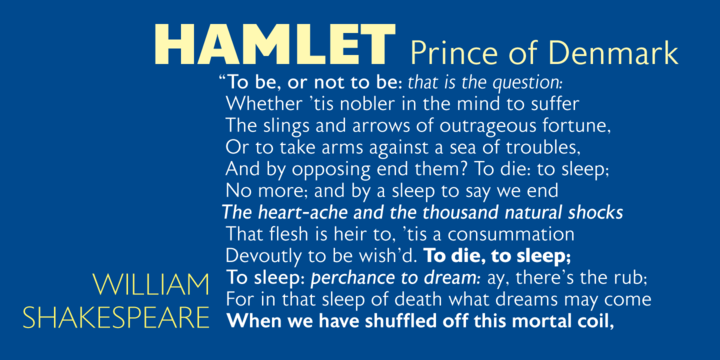
The Astoria Sans Family Font: A Comprehensive Review
- ✨ The Astoria Sans Family Font is an incredibly versatile font, with 6 weights and accompanying italics, making it perfect for a wide range of design projects.
- ✅ The font is based heavily on Gill, especially in the mid-weights, giving it a classic and timeless feel.
- ✅ The consistent series of condensed weights makes it easy to create a cohesive look across different design elements.
- ✅ The font is designed specifically as a text face, but it still works beautifully as a headline font.
While I love the Astoria Sans Family Font, there are a few quirks to be aware of:
- ⚠️ Some users have reported issues with kerning, particularly in larger text sizes.
- 🤔 The font doesn’t have a huge range of OpenType features, which may limit its use in certain design projects.
One of the standout features of the Astoria Sans Family Font is its OpenType features. While it may not have a huge range of features, it does include some useful glyphs and stylistic alternates. For example, you can access the font’s stylistic alternates by using the “Stylistic Set” feature in Adobe Creative Cloud. This allows you to create a more customized look for your design project.
The Astoria Sans Family Font was designed with inspiration from classic sans serif fonts like Gill. The designer aimed to create a font that was both modern and timeless, with a focus on versatility and legibility. The result is a font that’s perfect for a wide range of design projects, from branding and advertising to digital design and publishing.
| Author | Alan Meeks |
Q: What is the Astoria Sans Family Font?
A: The Astoria Sans Family Font is a sans serif font family designed specifically as a text face, with 6 weights and accompanying italics.
Q: What inspired the design of Astoria Sans?
A: The font was inspired by classic sans serif fonts like Gill, with a focus on creating a modern and timeless design.
Q: Is Astoria Sans suitable for digital design?
A: Yes, Astoria Sans is optimized for digital design and works beautifully in a variety of digital applications.